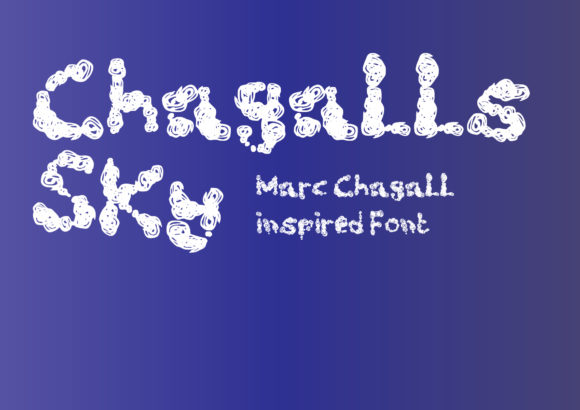
Step into a world of visual artistry with Chagalls Sky Font, a creation by GraphicsBam Fonts, designed to bring a whimsical touch to all your creative endeavors. This display font is not just a collection of characters; it's an expression of pure delight, a harmonious blend of charming curves and captivating shapes. Chagalls Sky isn't just a font; it's an enchanting journey into the realm of imagination, where your words blossom into captivating masterpieces.
Indulge in the boundless possibilities that await you with Chagalls Sky. Whether you're crafting a heartfelt Christmas card, designing an enchanting party invitation, or creating eye-catching social media posts, this font will transform your words into captivating works of art. Its playful strokes and cheerful demeanor will add a touch of magic to any project, leaving an unforgettable impression on your audience.
With Chagalls Sky, you'll discover a world of unlimited expression. Its charismatic curves and captivating lines will breathe life into your designs, evoking emotions and capturing attention wherever it's used. Unleash your creativity and let Chagalls Sky take you on an artistic adventure, where your words become more than just letters; they become a visual symphony that dances across the page.
Join the countless designers, crafters, and artists who have embraced the magic of Chagalls Sky. Let your imagination soar as you explore new creative horizons, crafting designs that are as unique and captivating as you are. With Chagalls Sky as your creative companion, the possibilities are endless. Embrace the whimsy, revel in the delight, and let your words dance with joy.
So, dear seeker of beauty, let Chagalls Sky be your guiding star. Dive into a world where imagination reigns supreme, and transform your designs into captivating works of art. Experience the pure joy of creating with a font that speaks to your soul and captivates your audience. Chagalls Sky is more than a font; it's an invitation to let your creativity run wild and create something truly magical.